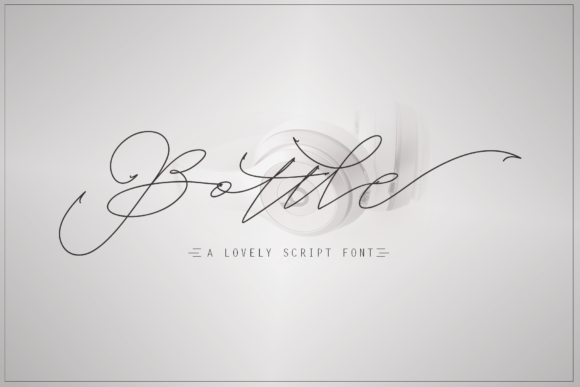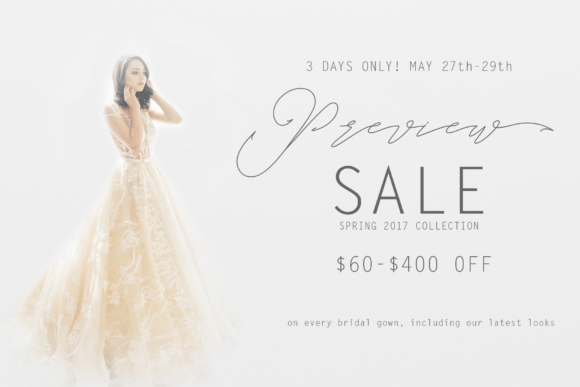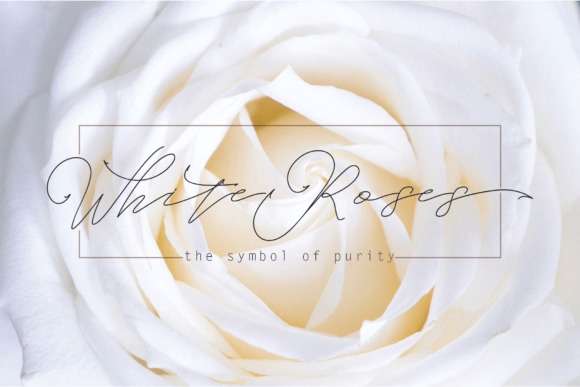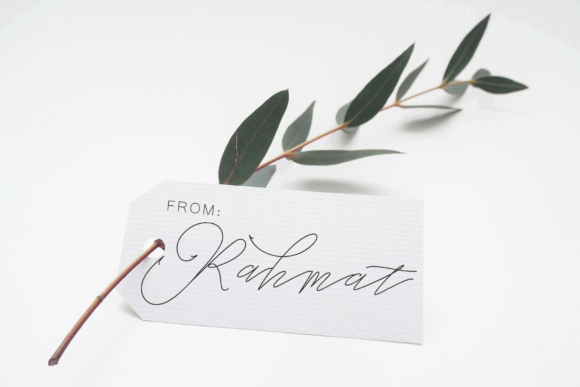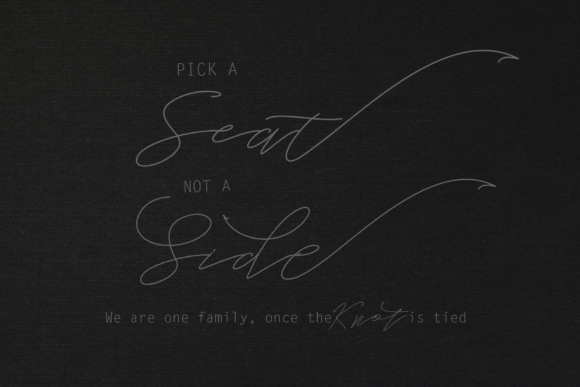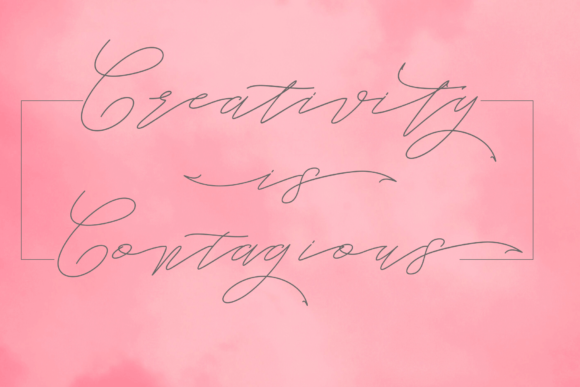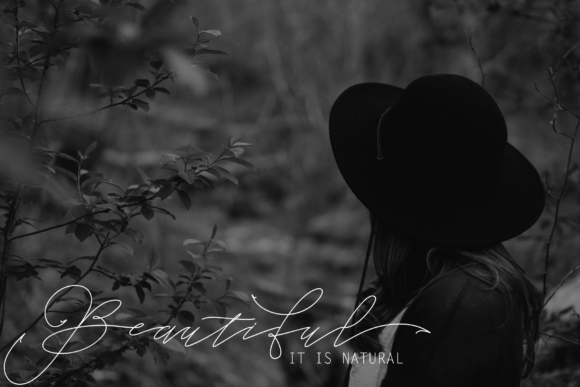
Bottle Font
About Bottle Font
Bottle Modern Calligraphy. This font was designed by handwriting, and it has a modern and unique forms of calligraphy, the writing style is very natural.